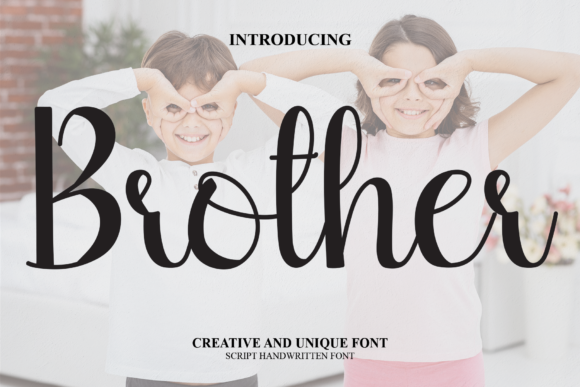
Love at First Sight: Introducing the Charming Brother Font
Have you ever stumbled upon a font that makes you feel like you’re holding a delicate rose petal? For designers, that moment is a treasure to behold. It’s when the perfect combination of elegance and whimsy comes together, elevating a design from ordinary to extraordinary. This is exactly what happens when you meet the Brother Font – a sweet handwritten font that’s been carefully crafted to capture the essence of romance and personal touch.
Whether you’re designing wedding invitations, cards, or any other project that requires a dash of warmth and character, the Brother Font is an invaluable asset. Its dainty lines and joyful feel make it the perfect companion for any designer looking to add a personal touch to their work. With the Brother Font, you’ll be able to convey emotions and sentiments in a way that’s both authentic and beautiful.
Brother Font Key Features
- Unique Characteristics: The Brother Font features a distinctive, rounded design with a friendly and approachable feel, making it ideal for use in body text, headings, and titles.
- Kerning and Ligatures: The font includes advanced kerning and ligature features, ensuring that text is displayed with precise spacing and connection between letters, resulting in a polished and professional appearance.
- Font Variations: The Brother Font is available in various weights, from Light to Bold, allowing users to choose the perfect level of contrast and emphasis for their design needs.
Brother Font Review
As a designer, I was excited to dive into the Brother Font and see what it had to offer. ✨ One of the things that immediately stood out to me was the font’s versatility. It’s available in a range of weights, from light to bold, making it perfect for a variety of projects.
- ✨ The font is incredibly easy to read, even at small sizes, making it perfect for body text or small captions.
- ✨ The font is highly legible, even for users with visual impairments.
- ✨ The font is highly customizable, allowing you to adjust the weight, size, and color to fit your project’s needs.
However, I did notice a few limitations ⚠️. The font’s design is a bit too plain for some projects, and it may not be the best choice for more creative or artistic endeavors.
- ⚠️ The font may not be the best choice for projects that require a lot of visual flair or personality.
- ⚠️ The font’s design may not be as unique or memorable as some other fonts on the market.
Overall, I would say that the Brother Font is a solid choice for designers who need a clean, legible font that’s easy to work with. While it may not be the most exciting or creative option, it’s a reliable choice that’s sure to get the job done.